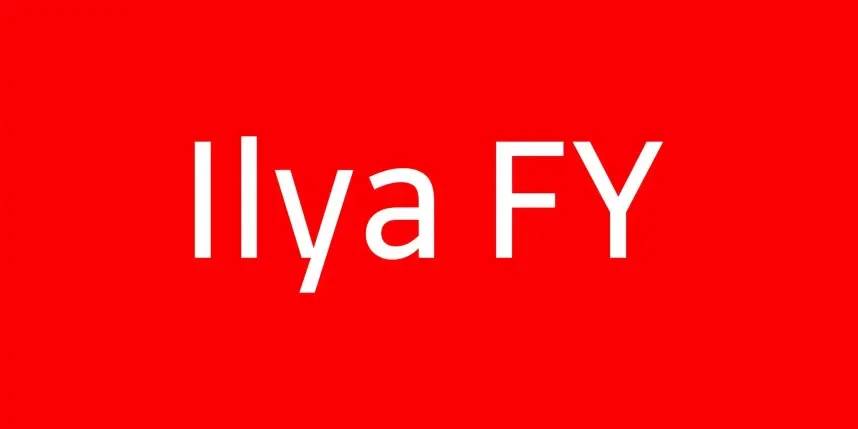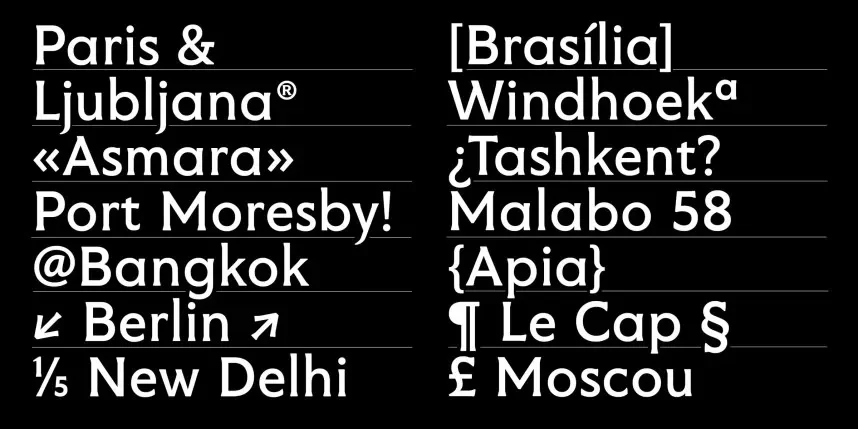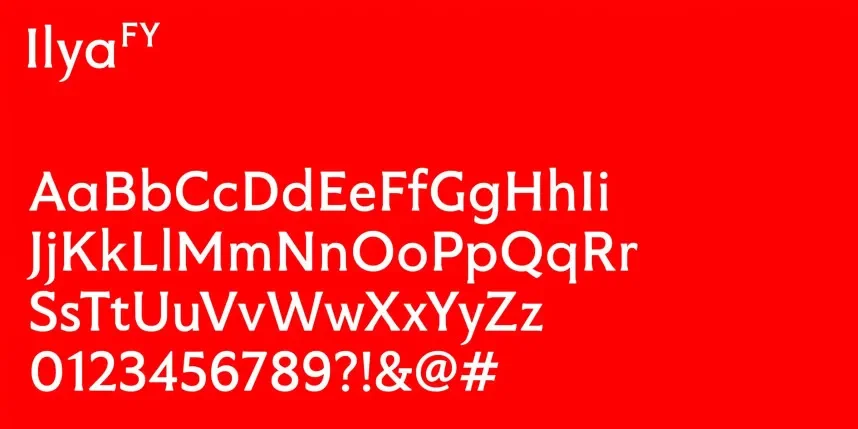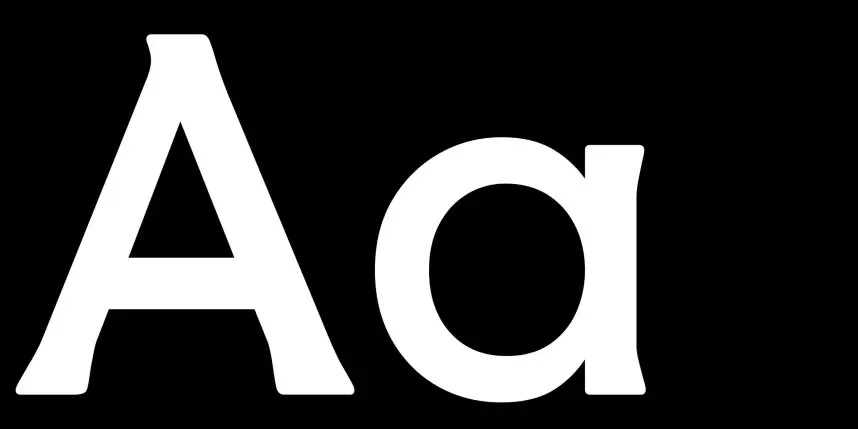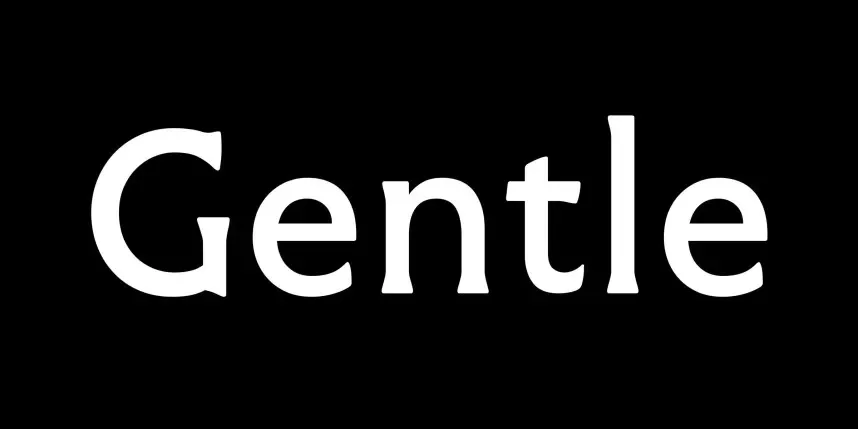
Ilya FY Font is a sans-serif typeface known for its clean, modern design and versatility. The sharp, straight lines and balanced proportions make it highly legible, making it perfect for branding, web design, and digital interfaces. Its neutral style ensures clarity across various screen sizes.